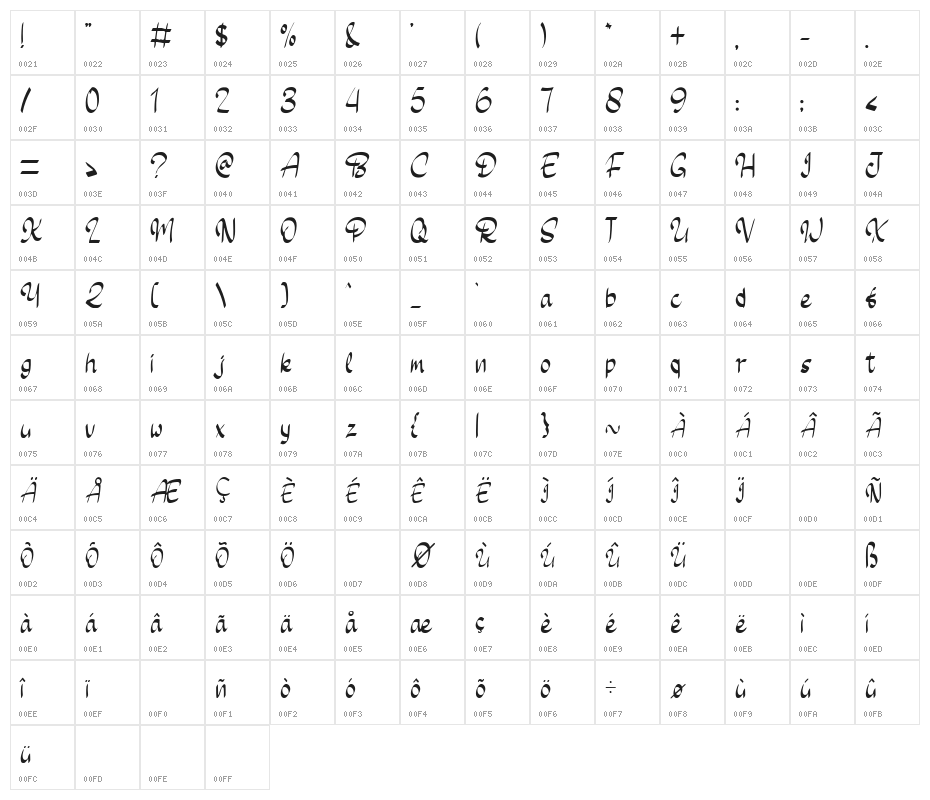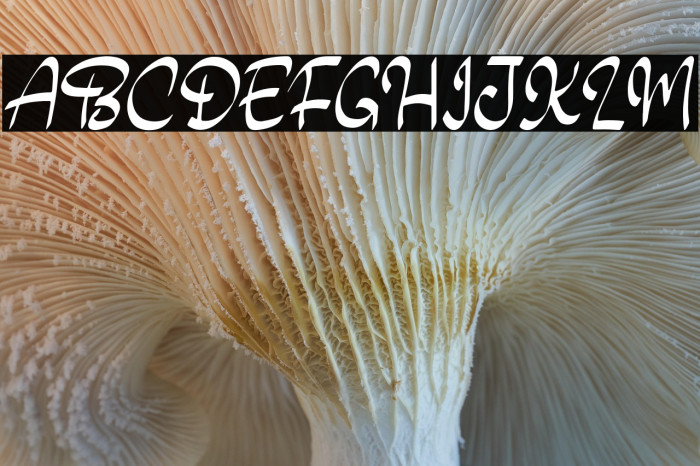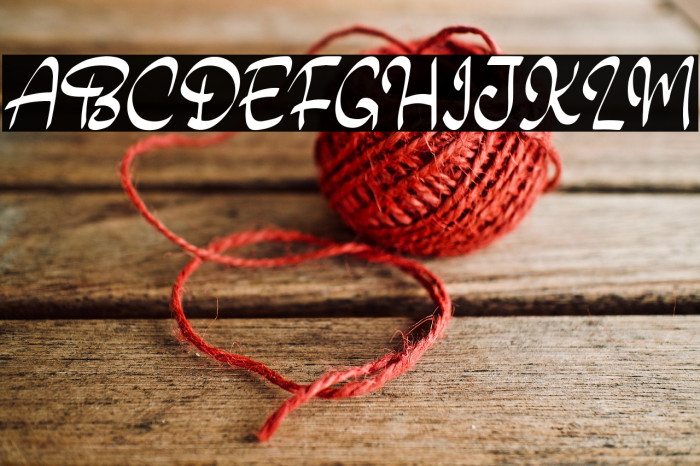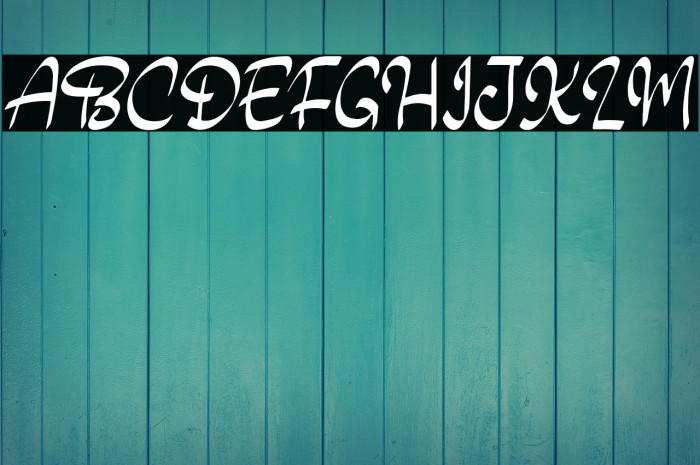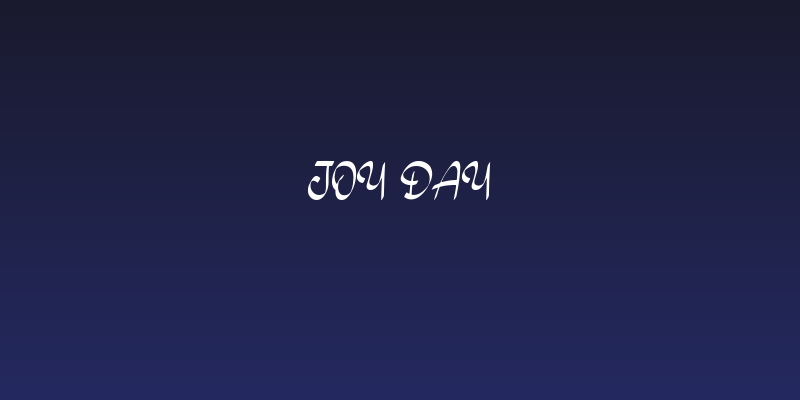
Joy Day Font
Joy Day Description
This font features a dynamic and fluid script style, characterized by its elegant and flowing letterforms. The uppercase letters exhibit a sense of movement with their sweeping curves and varying stroke widths, while the lowercase letters maintain a consistent rhythm, adding to the overall harmony of the typeface. The numerals are designed with a similar flair, ensuring readability while maintaining the font's artistic essence. Special characters are thoughtfully integrated, complementing the overall aesthetic. This font's unique style makes it suitable for creative and expressive design projects.